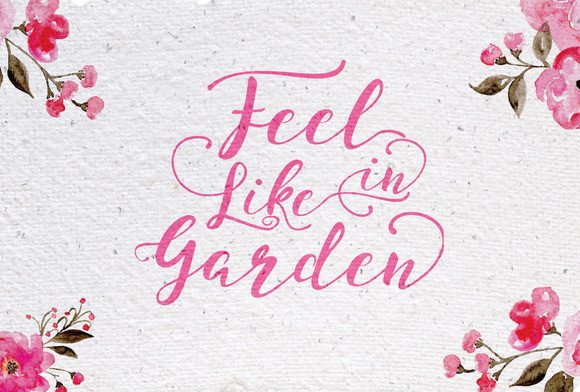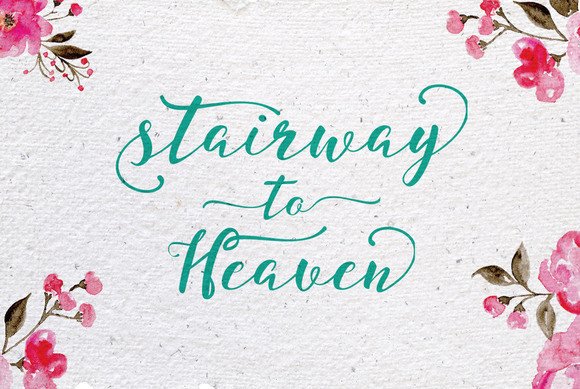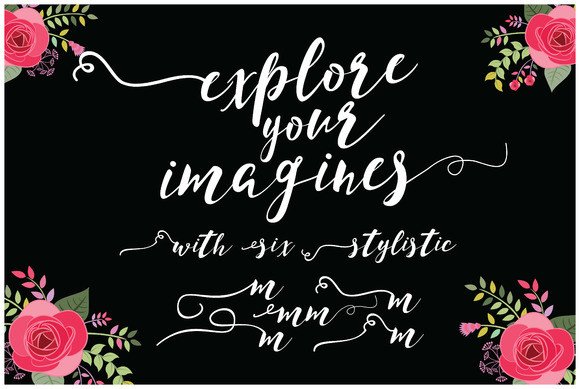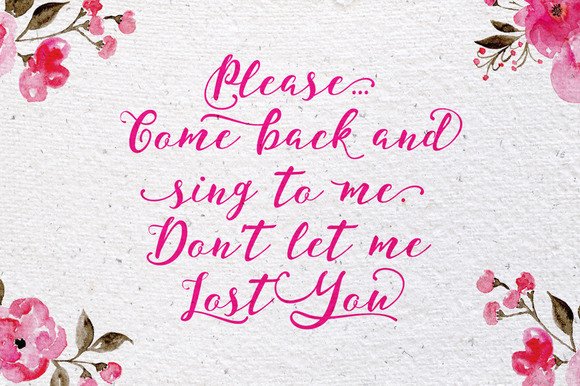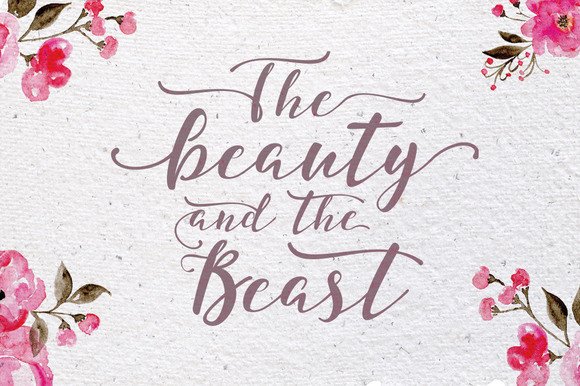
Monica Font
About Monica Font
Beautiful and debonair, Monica is a bewitching calligraphy script.  Useful for a large number of designs or projects, Monica is both modern and timeless.